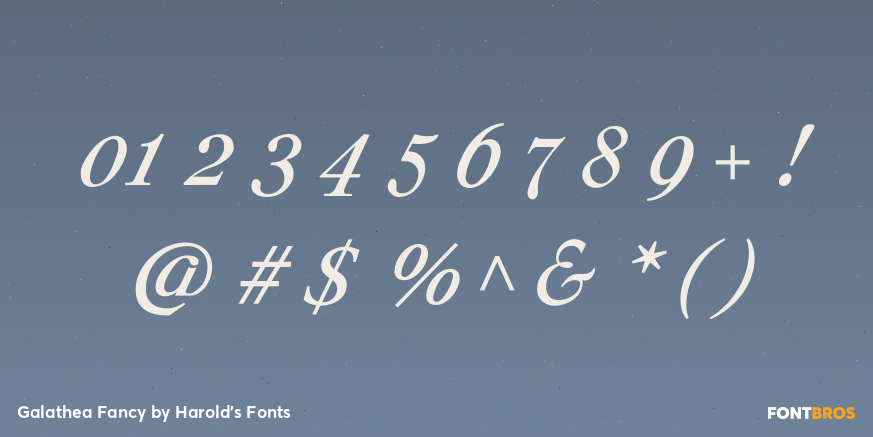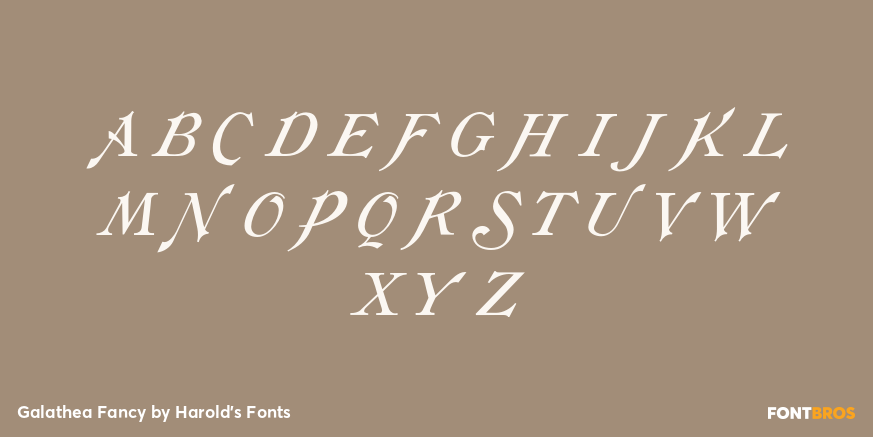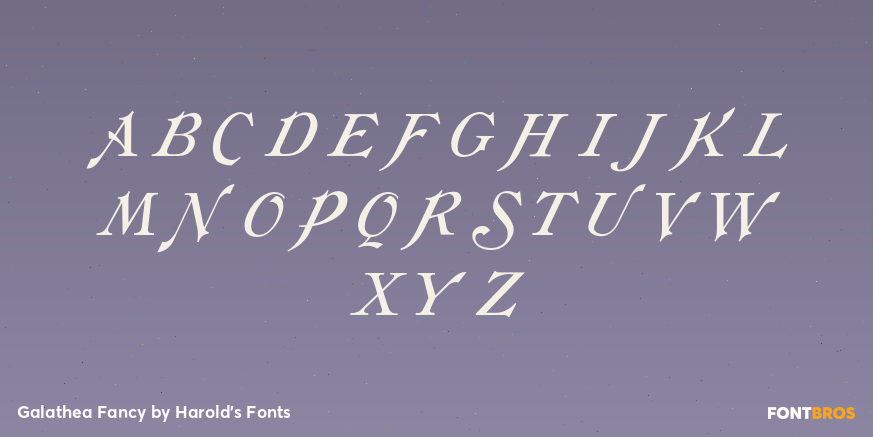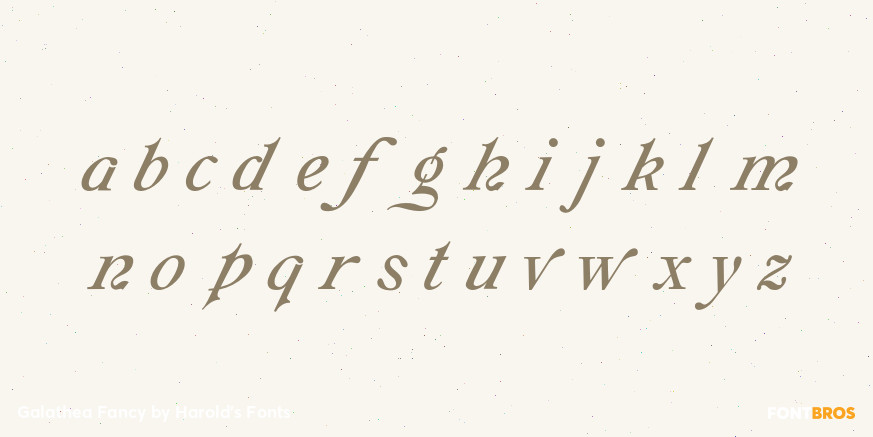
Galathea Fancy
Font Style by Harold's Fonts
GALATHEA is an elegant italics-only font. My digital font was inspired by a 19th-century typeface from Schelter & Giesecke. After designing my version of Galathea, I found examples of another, very similar S&G font called “Italique Moyen-Age Demi-Grasse.” I’ve now recreated that second font, calling it simply GALATHEA PLAIN, as it shares so much with its sister, now called GALATHEA FANCY.